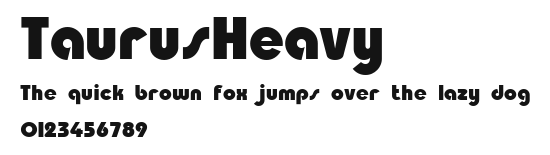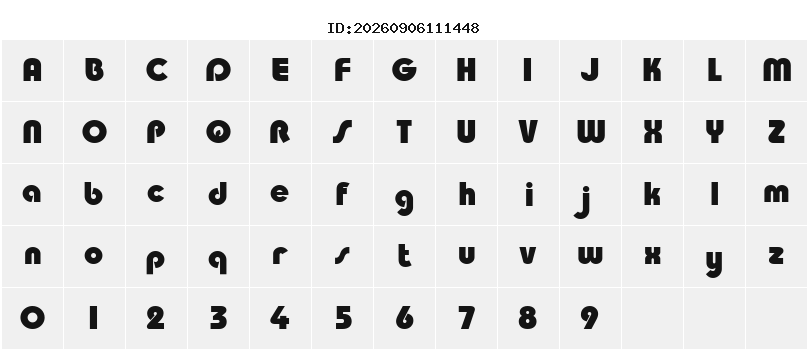
TaurusHeavy Preview
• Font Name: TaurusHeavy
• Full Font Name: TaurusHeavy Normal
About TaurusHeavy.ttf
TaurusHeavy.ttf is a modern, elegant sans-serif font designed for ultimate readability and visual harmony. Perfect for branding, headlines, web design, and print materials.